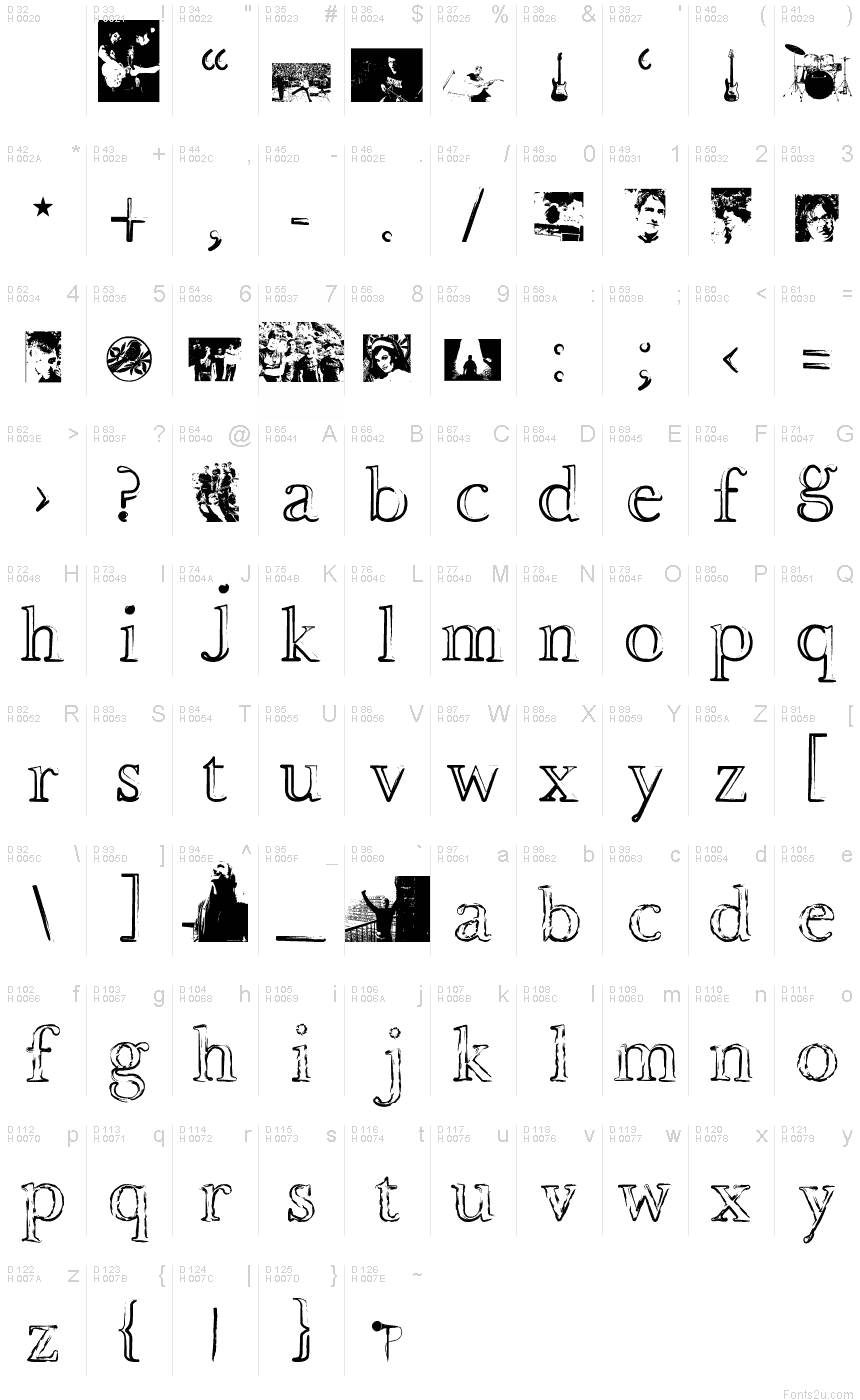
Devotion and Desire - Bayside
Devotion and Desire - Bayside font by M. Tyndall s a free distorted decorative serif typeface that looks like it’s been dragged through brambles and sea spray. The refined, bookish skeleton of the letters is wrapped in scratchy, thorn-like texture, giving every word a restless, romantic tension. It feels both damaged and delicate, like ink etched into weathered paper.
This free font thrives when you want drama with a touch of elegance-think band logos, dark romance book covers, gothic posters, tattoo flash sheets, alternative fashion branding, or moody event flyers. Using Devotion and Desire - Bayside large lets the intricate edges and grainy curves really show; pair it with a clean sans from the Devotion and Desire family or a neutral grotesque for body text to keep your layouts legible and striking.